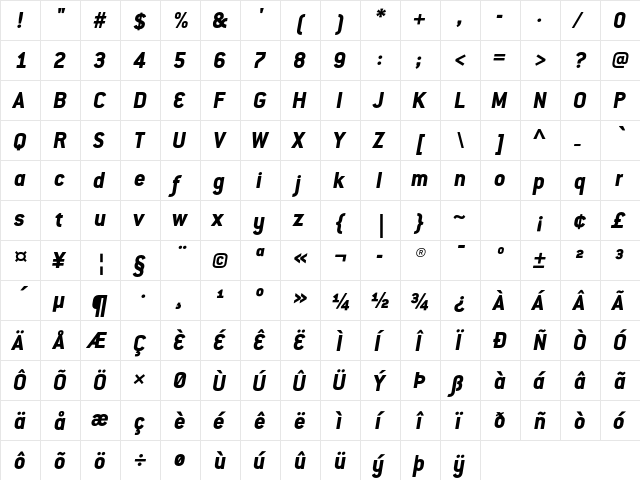
ConduitITCStd ExtraBoldItalic Font Preview
| Foundry | International Typeface Corporation |
| Designer | Mark van Bronkhorst, MvB Design |
Design Context for ConduitITCStd Typeface
ConduitITCStd is a composed and adaptable typeface that performs quietly and consistently across a wide range of design contexts. The dynamic lean of this cut emphasises speed and emphasis in any layout. The heavy weight commands attention and anchors typographic hierarchies. The condensed width makes it efficient for tight spaces without sacrificing legibility.
Pro Tip: Use ConduitITCStd for emphasis, pull quotes, and subheadings where its slanted energy can add rhythm to the layout.